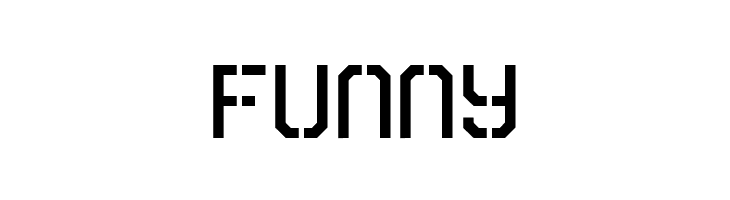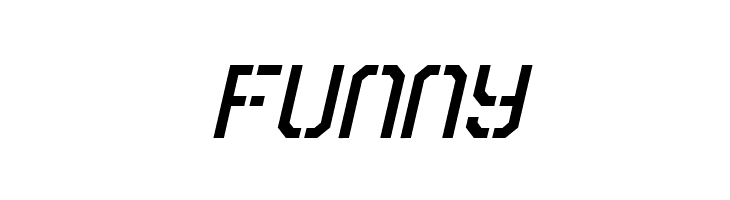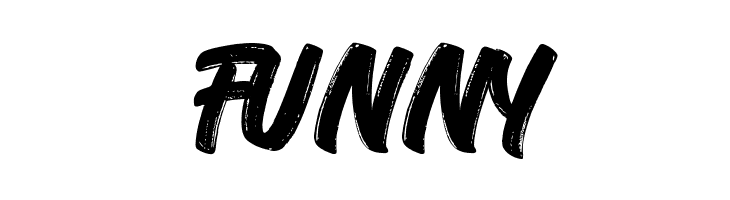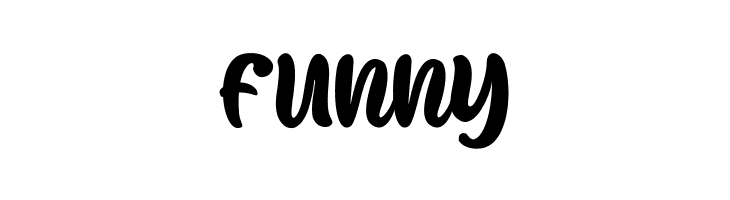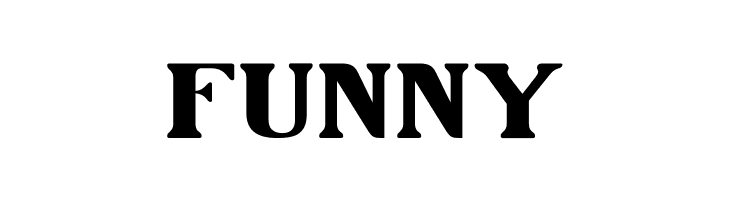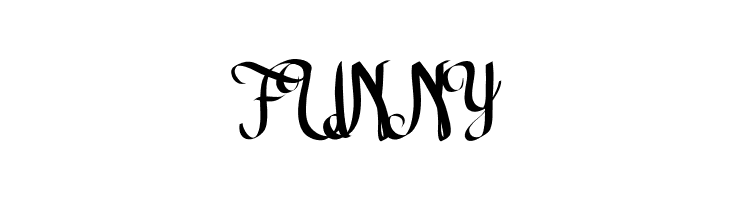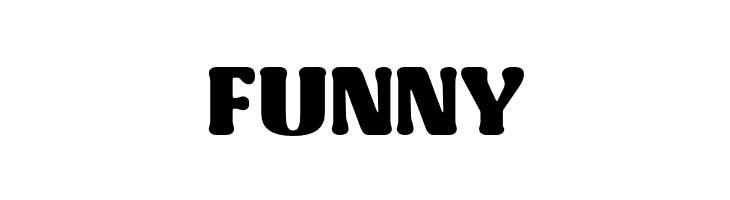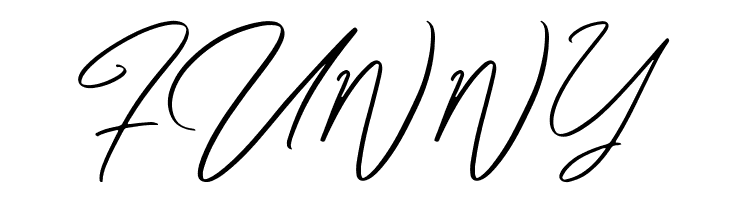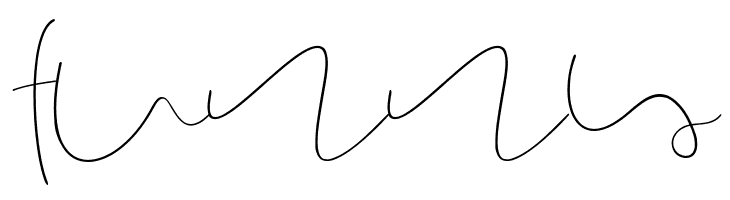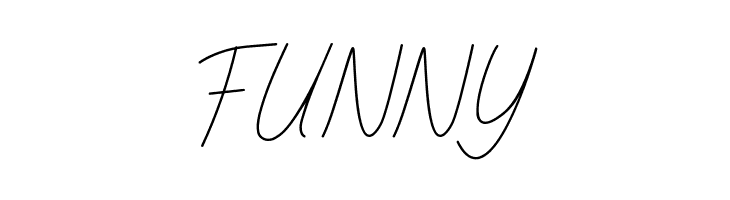
• CapucheTrial-Black
A bold, rounded font with a playful and robust appearance.
• CAPussyGalore
A bold, geometric sans-serif font with a modern and clean design.
• CAPUT_TRIAL
A bold, textured font with a hand-drawn, chalk-like appearance.
• Car Wash
A bold, grungy font with a distressed, textured appearance.
• çar_1
• Caracas
A modern, geometric font with clean lines and rounded edges, perfect for a futuristic look.
• Caracas
A modern, geometric font with rounded edges and a sleek design.
• Caracas Bold
A bold, modern font with a geometric and slightly rounded design.
• Caracas Bold Italic
• Caracas Italic
A modern, italicized font with a sleek and dynamic style.
• Caracas Light
A modern, geometric font with clean lines and a sleek, condensed style.
• Caracas Light Italic
A sleek, modern, light italic font with medium contrast and a streamlined appearance.
• CaracasCursiva
A modern, slanted font with consistent stroke width and a dynamic appearance.
• CaracasLG
A modern, geometric font with a sleek and compact design.
• CaracasLG Italic
A modern, italicized font with a sleek and dynamic design.
• Carade Personal Use
A bold, dynamic serif font with a classic yet modern appeal.
• Caraka
An artistic script font with flowing, interconnected letterforms and high contrast.
• Caramel
A lively, cursive font with fluid, interconnected letters and dynamic strokes.
• Caramel Candy
A bold, playful handwritten font with smooth, rounded characters.
• CaramelandVanilla
A bold, brush-style font with a dynamic, handwritten appearance.
• CaramelChestnutDEMO
A playful, casual handwritten font with smooth, rounded edges.
• Caramella Bold